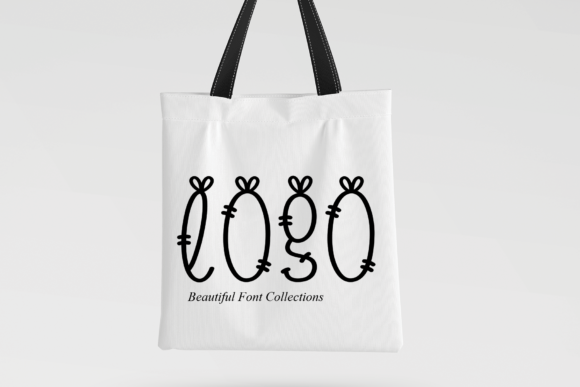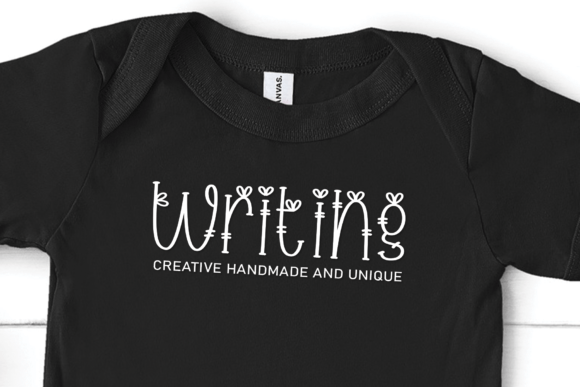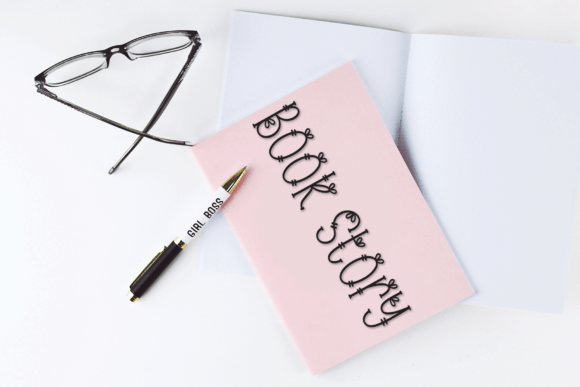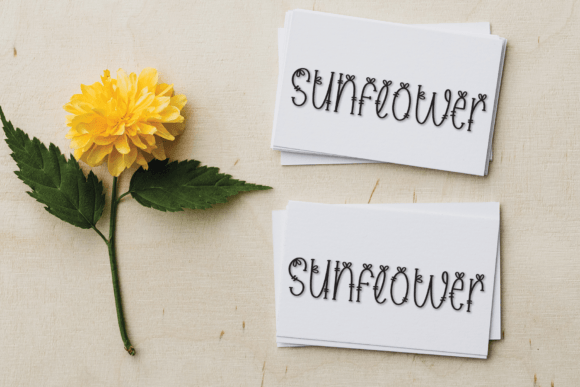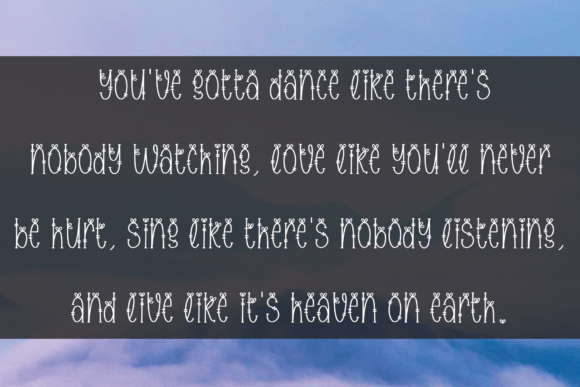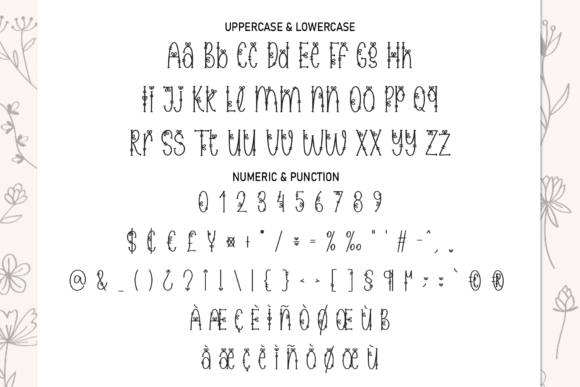
Introduction to Flower Symbol Font
Flower Symbol is a cool and casual handwritten font.
Whether you’re using it for crafts, digital design, presentations, or making greeting cards, this font has the potential to become your favorite go-to font, no matter the occasion .
Flower Symbol Font offers exceptional quality and versatility, making it a valuable addition to your design toolkit. Whether you’re creating for personal projects or commercial use, Flower Symbol Font delivers professional results.